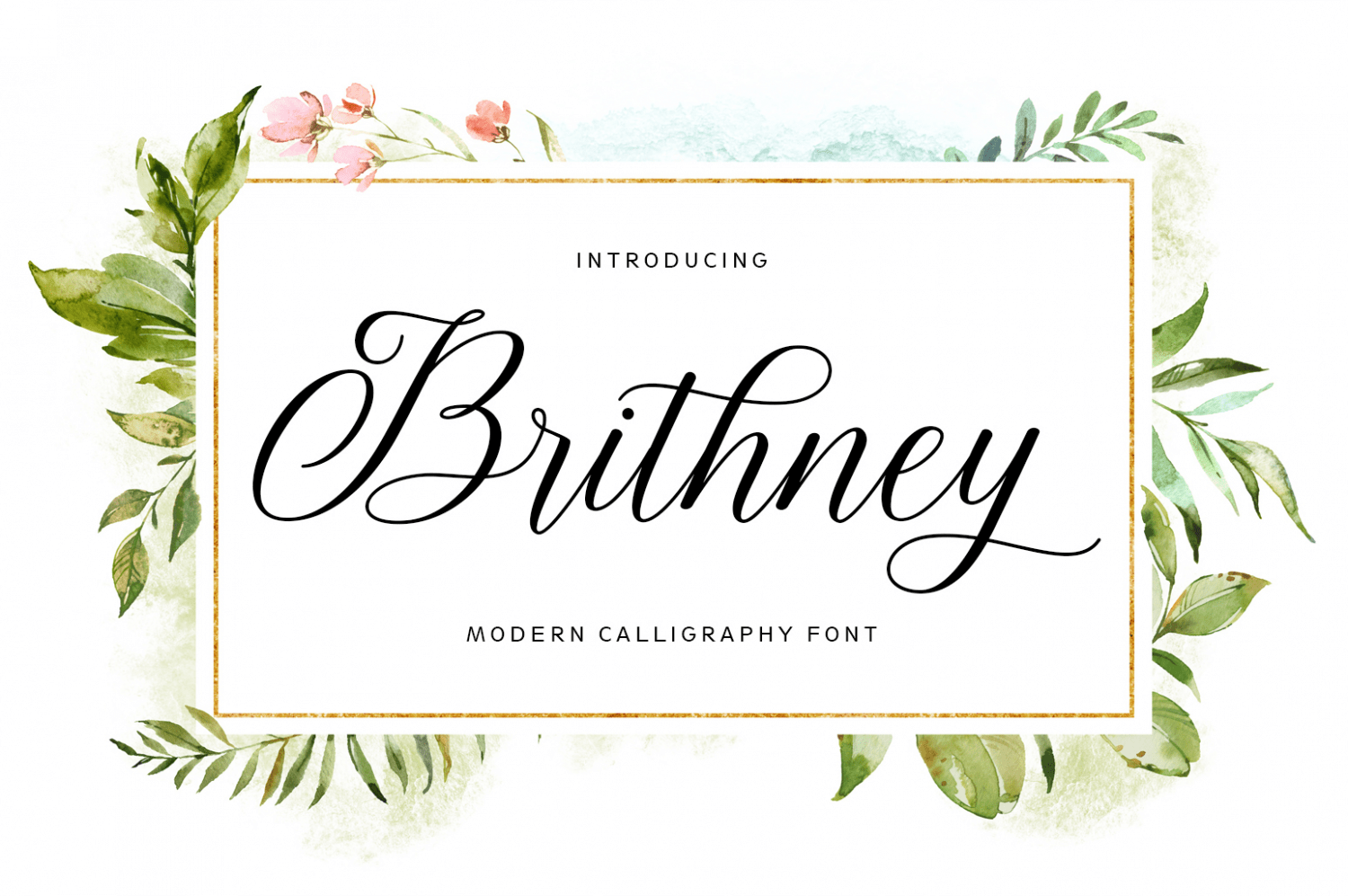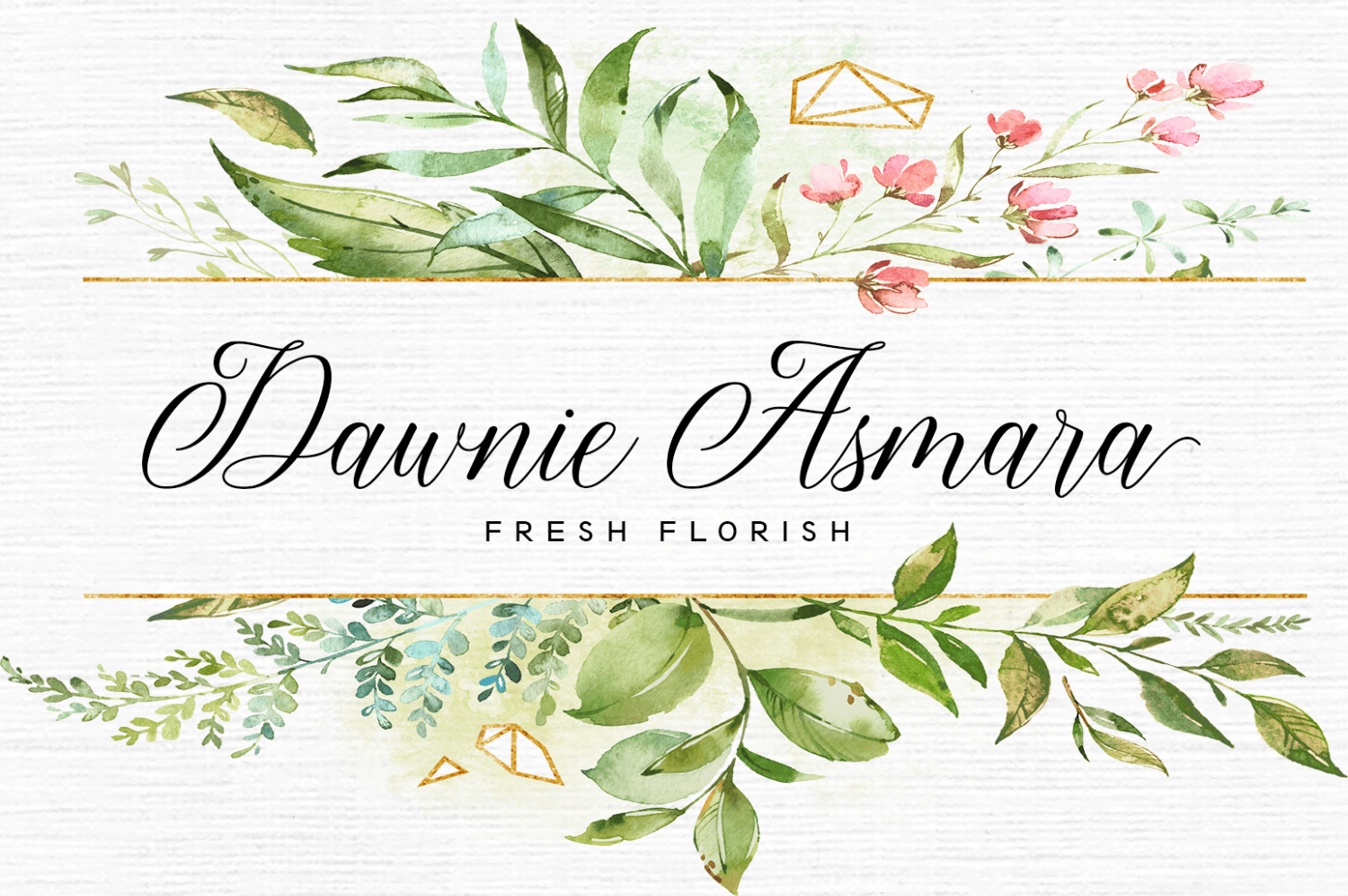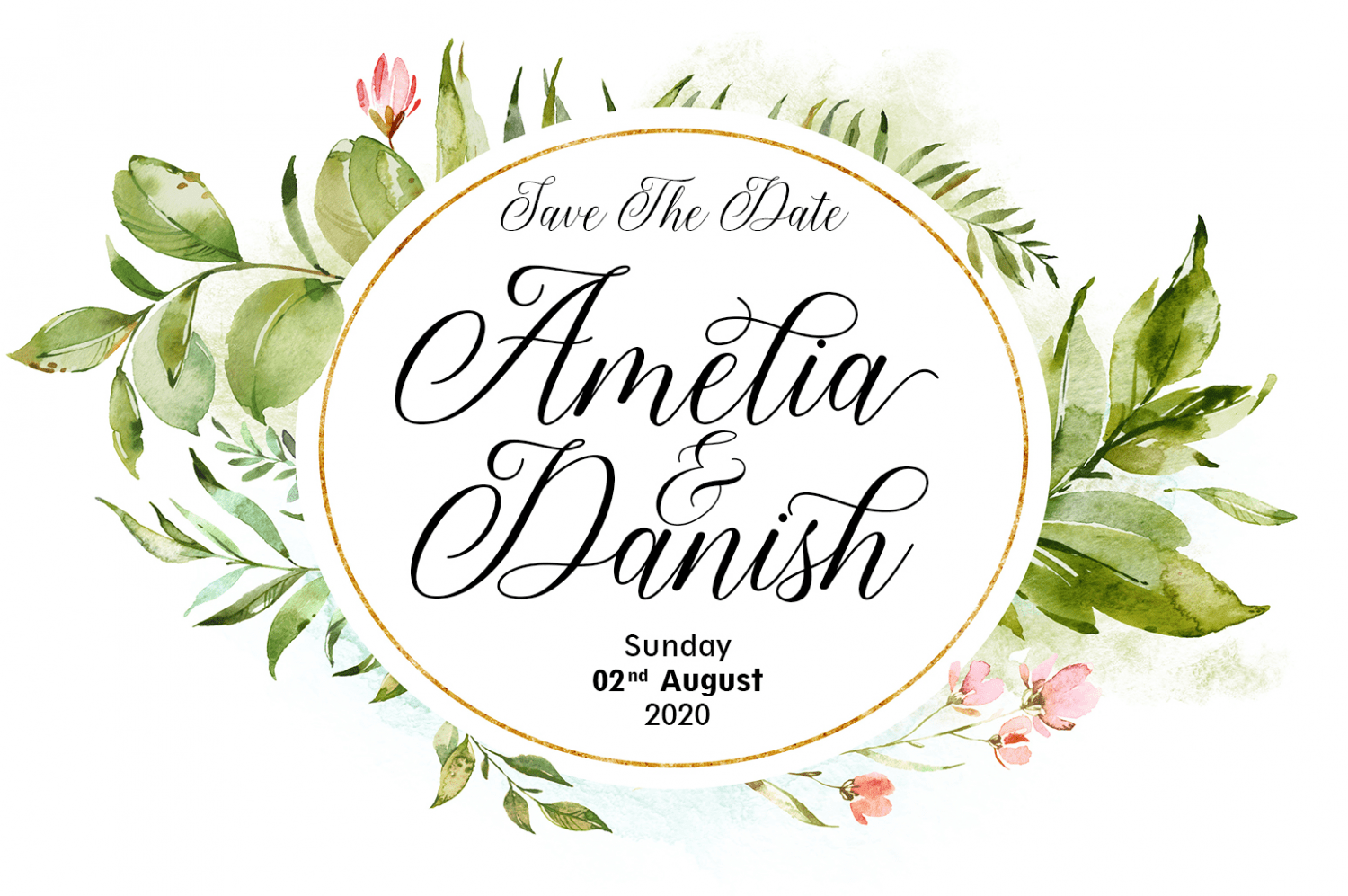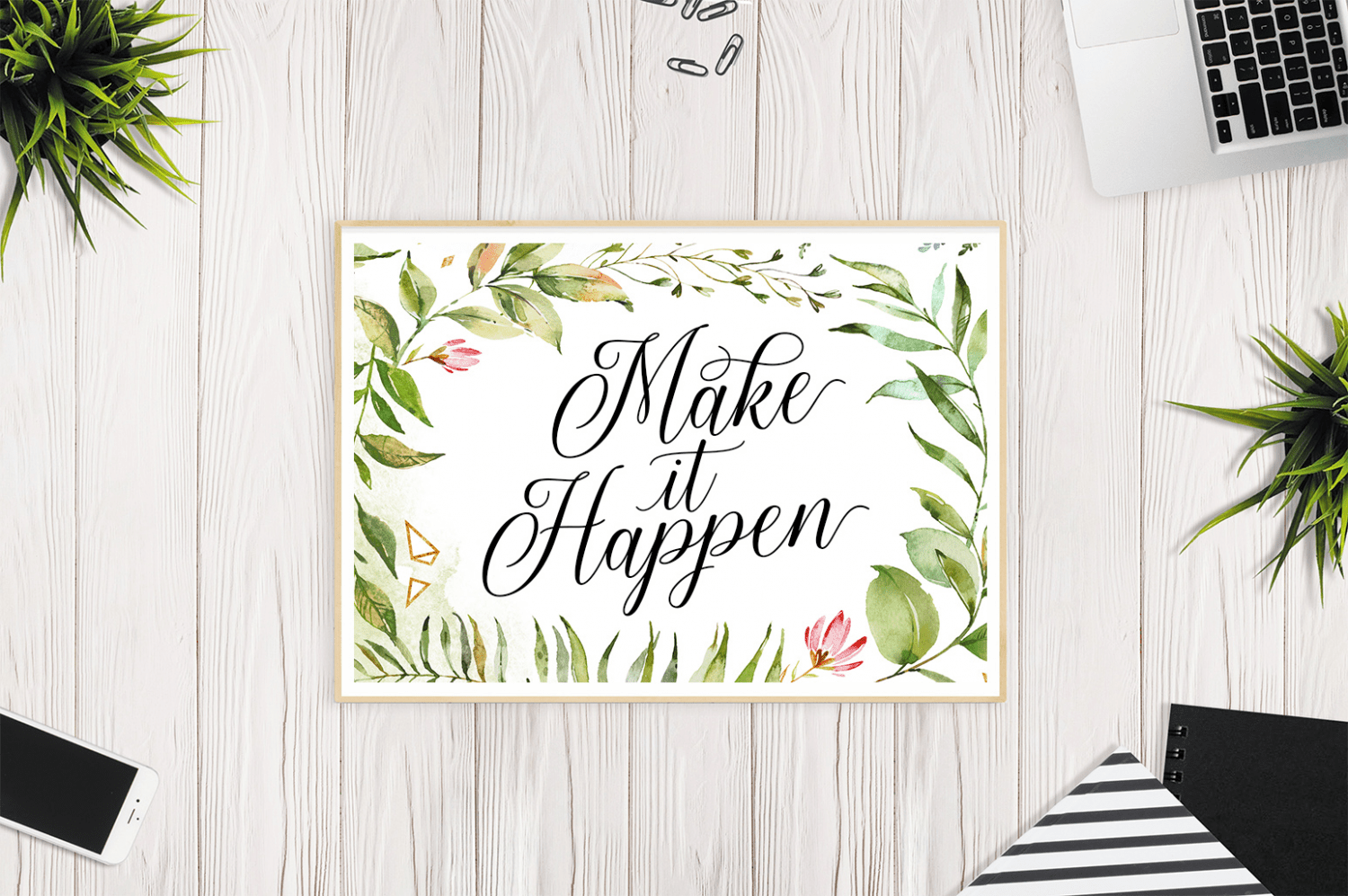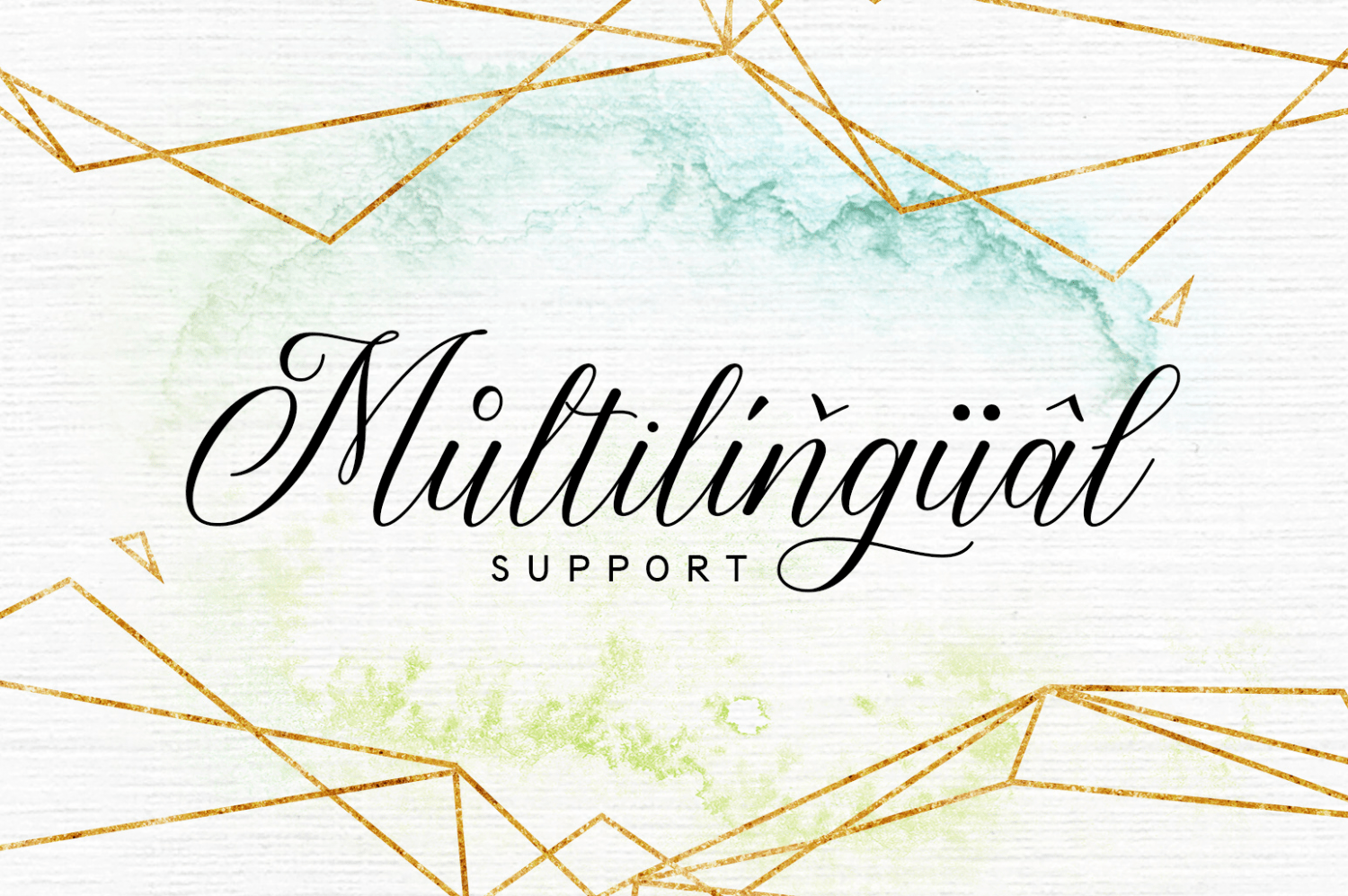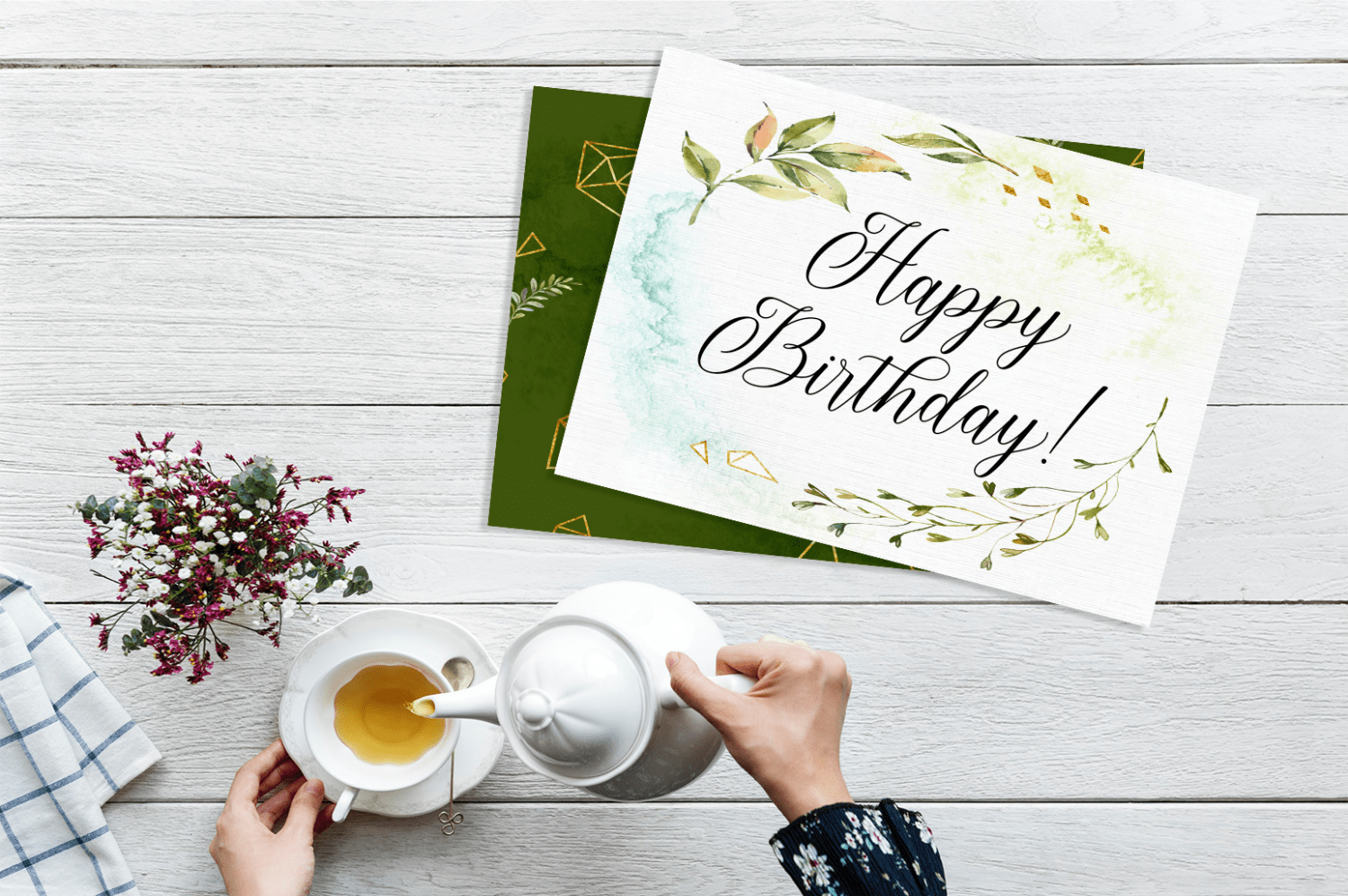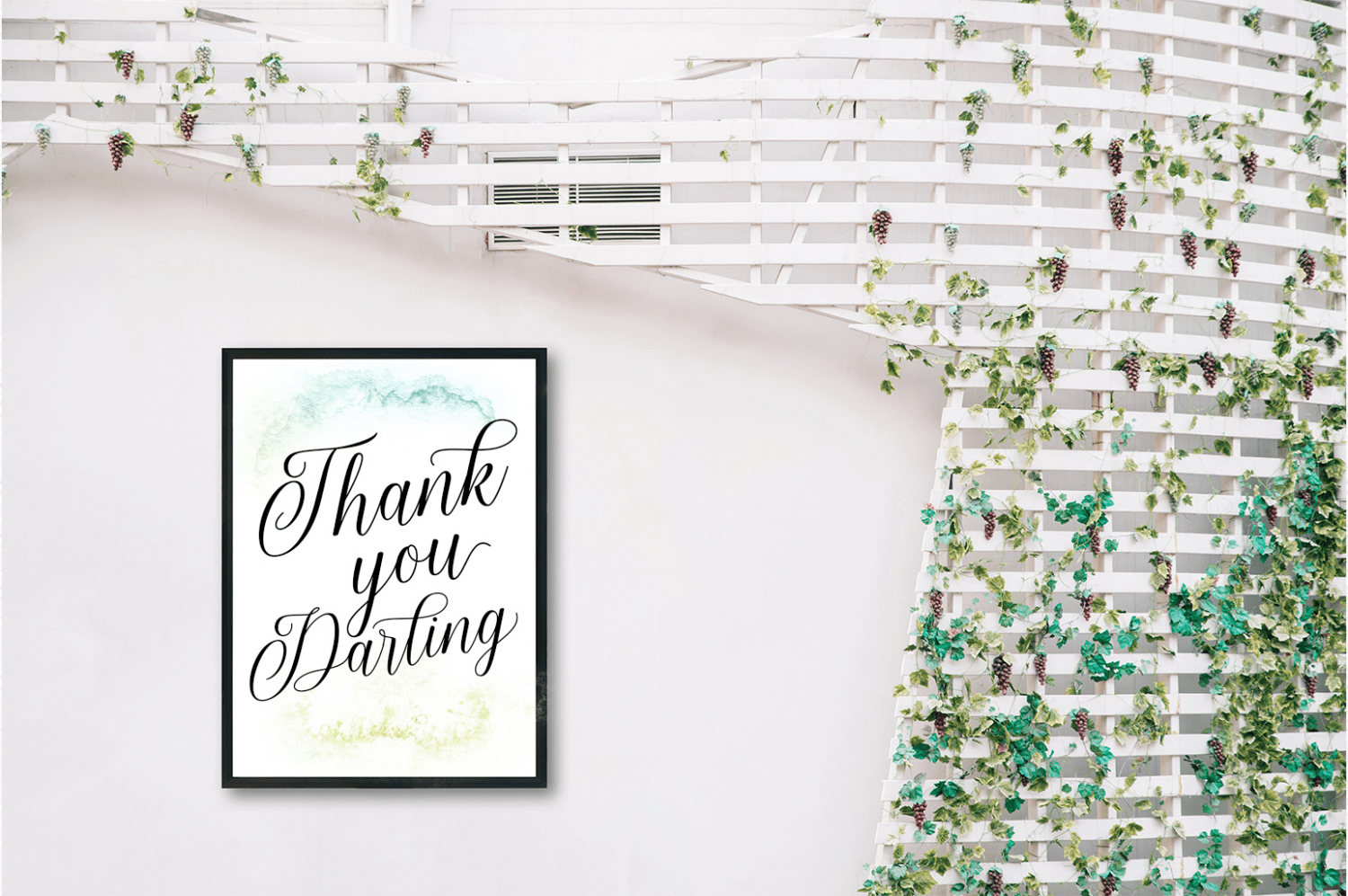
Brithney Script
Brithney Script - a new fresh & modern calligraphy style, decorative characters and a dancing baseline! So beautiful on invitation like greeting cards, branding materials, business cards, quotes, posters, and more design concept!
Features:
Unique ligatures
Stylistic Alternates
Stylistic sets
Basic Latin A-Z and a-z
Numbers
International Symbols included
Punctuation